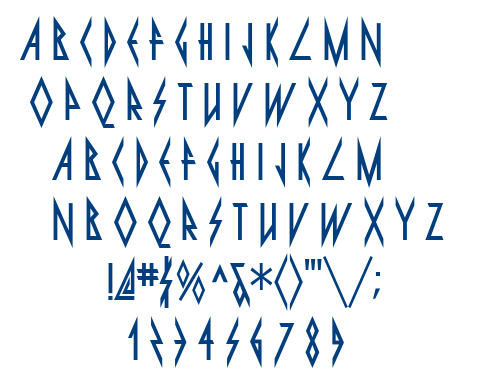
Pyrite is an angular, heavy metal display font. In OpenType savvy applications letters, the bottom stroke of the L will change depending on whichg letter follows it. Ligatures have been included for LL and OO pairs. Don’t forget to read the files inside the zip for details. Updated in 2012.